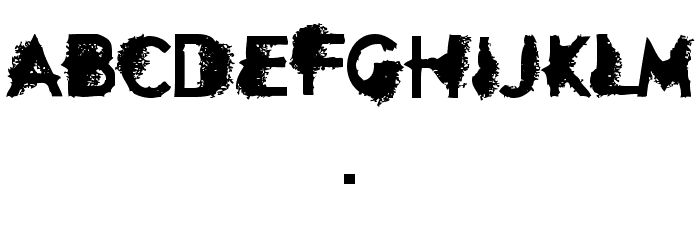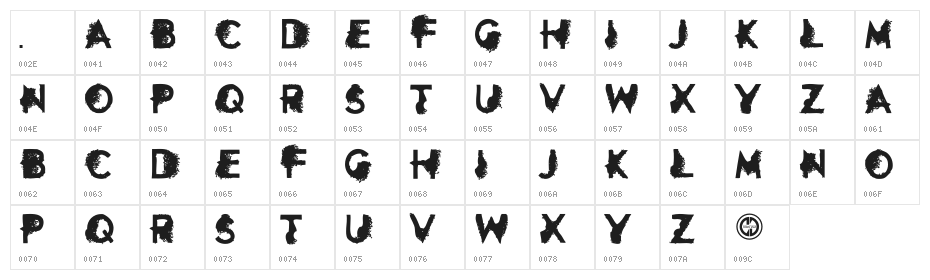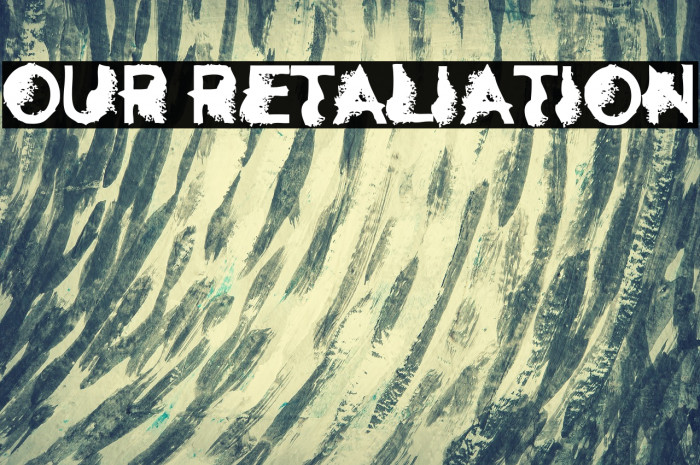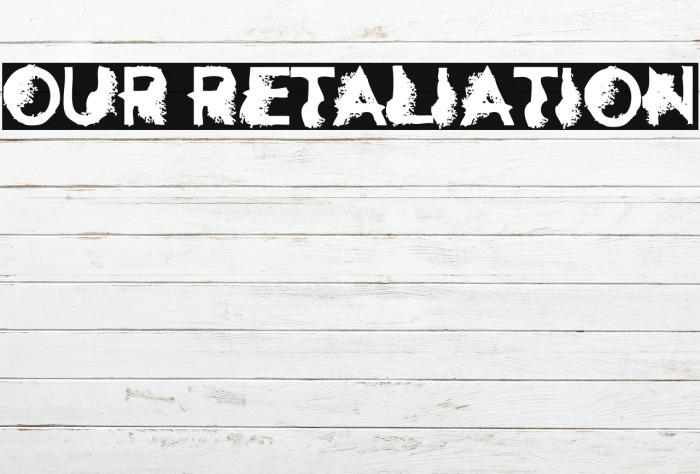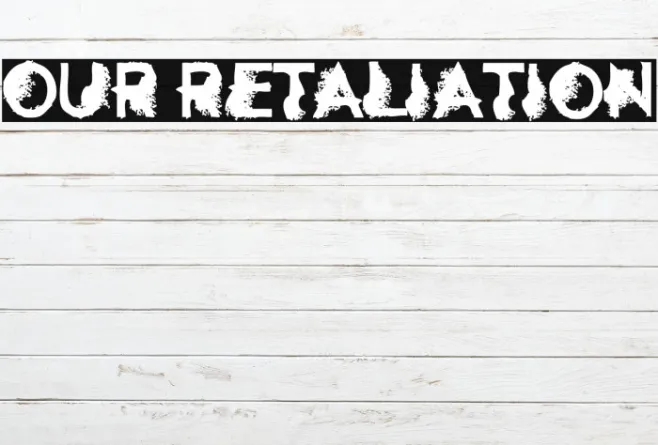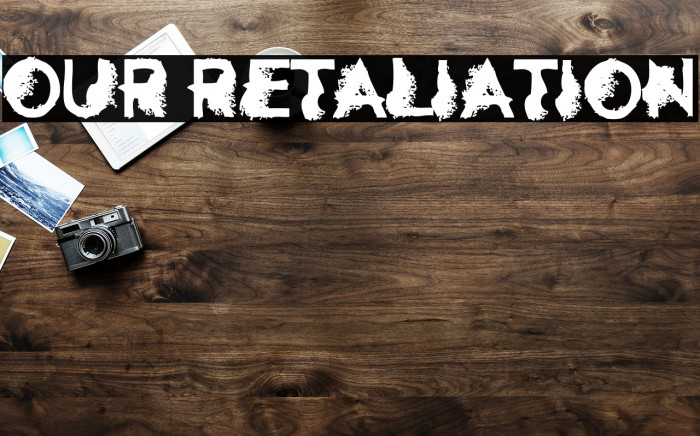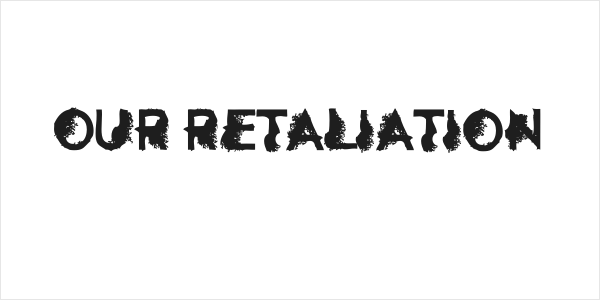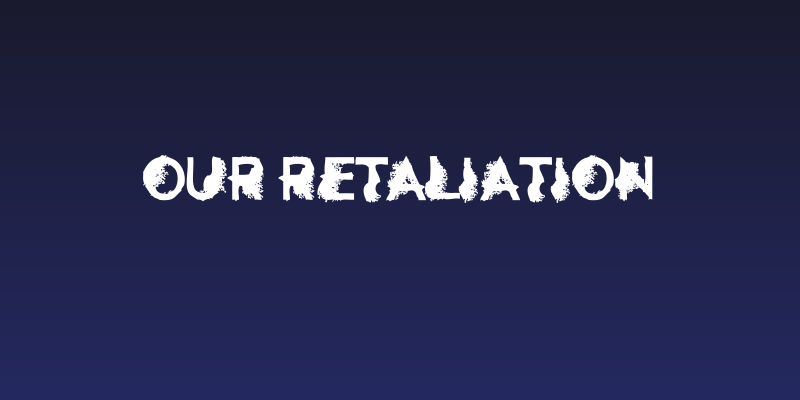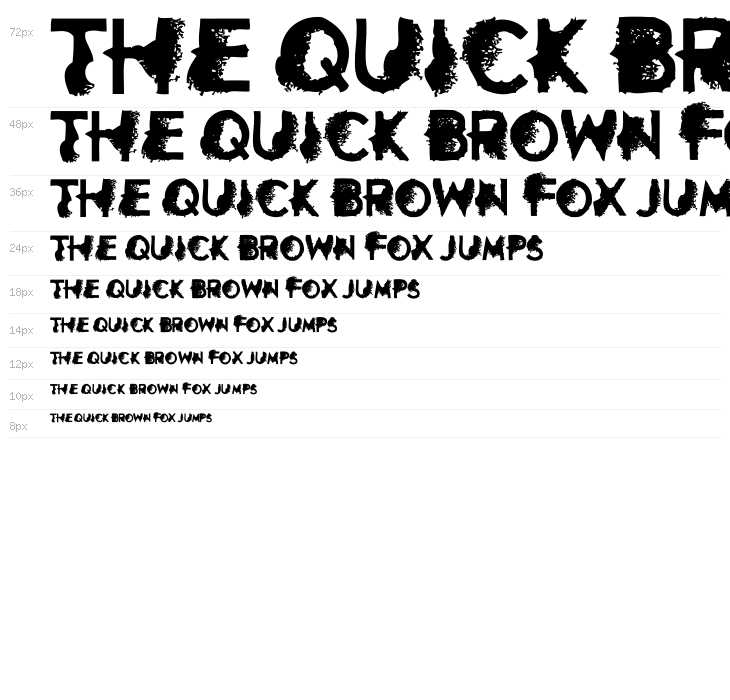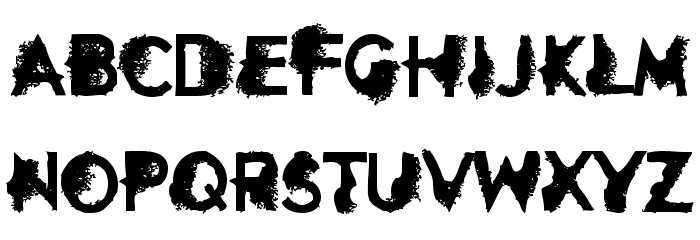
Our Retaliation Font
Our Retaliation Description
This font features a bold, distressed style with rough, textured edges that give it a grunge and rebellious appearance. The characters are uppercase and have an uneven, worn-out look, adding a sense of chaos and energy. The design is highly decorative, making it stand out with its unique, artistic flair. The irregularities in the letterforms create a dynamic visual impact, perfect for projects that require a bold statement. The font's rugged aesthetic is reminiscent of urban street art, making it ideal for creative and edgy designs.
| Overall Style | Grunge, Urban, Artistic |
| Proposed Projects | Ideal for album covers, posters, streetwear branding, and edgy graphic designs. |